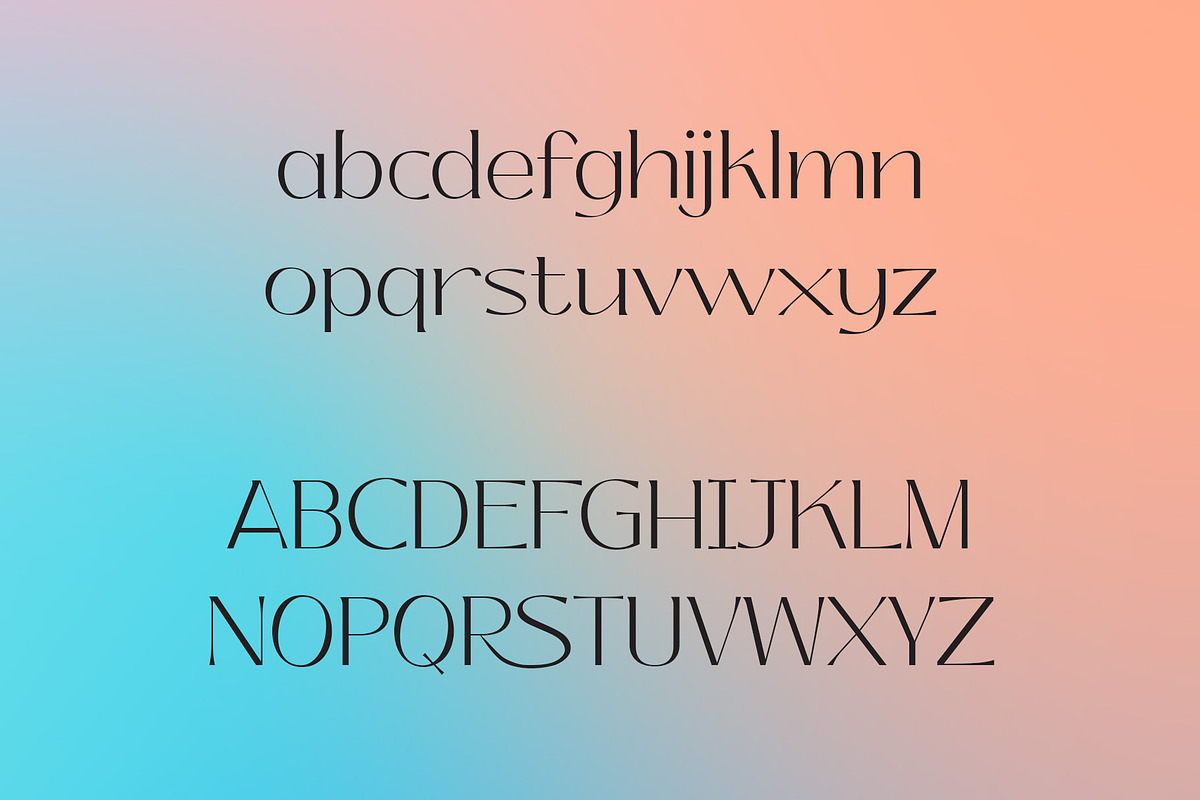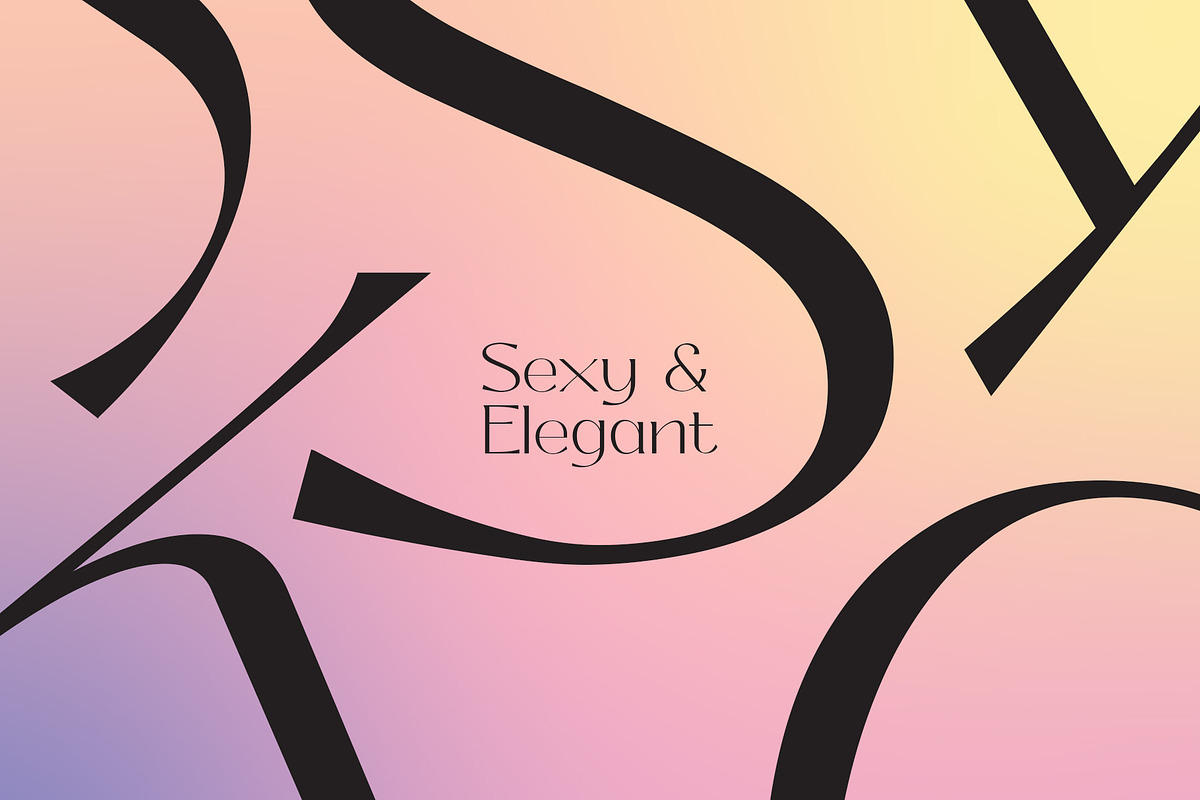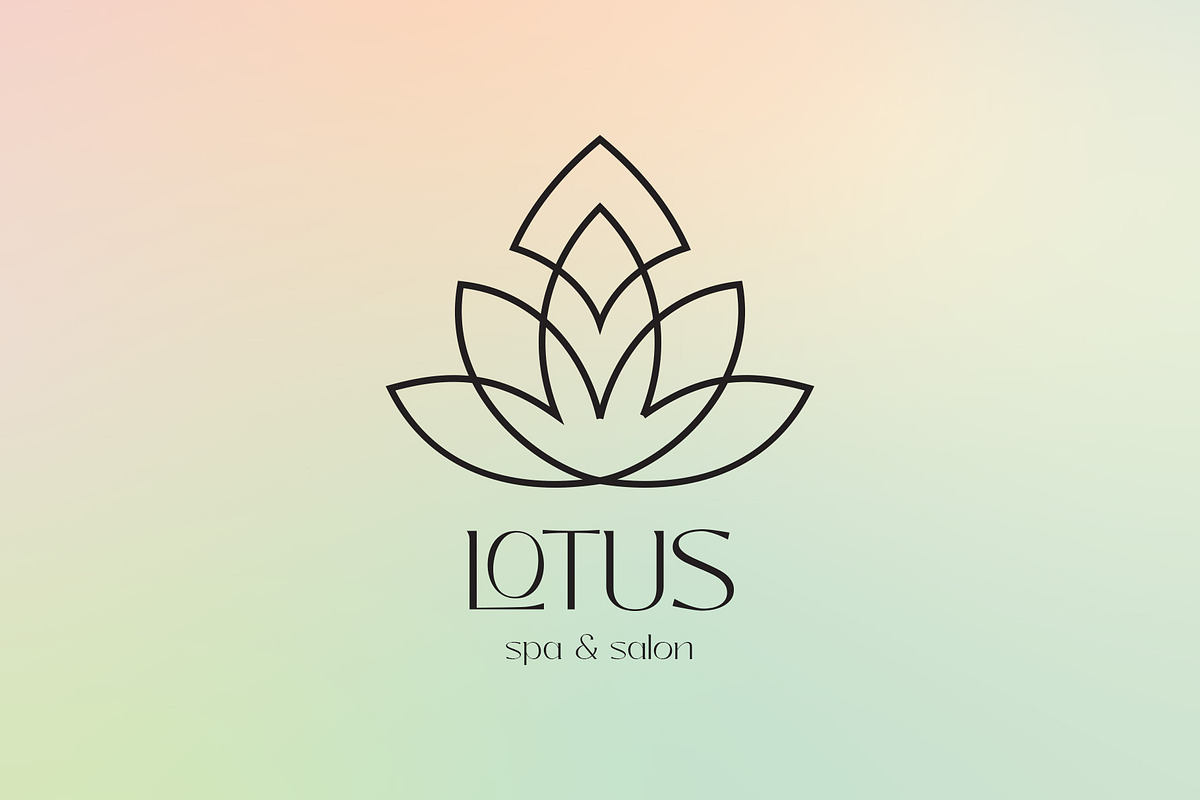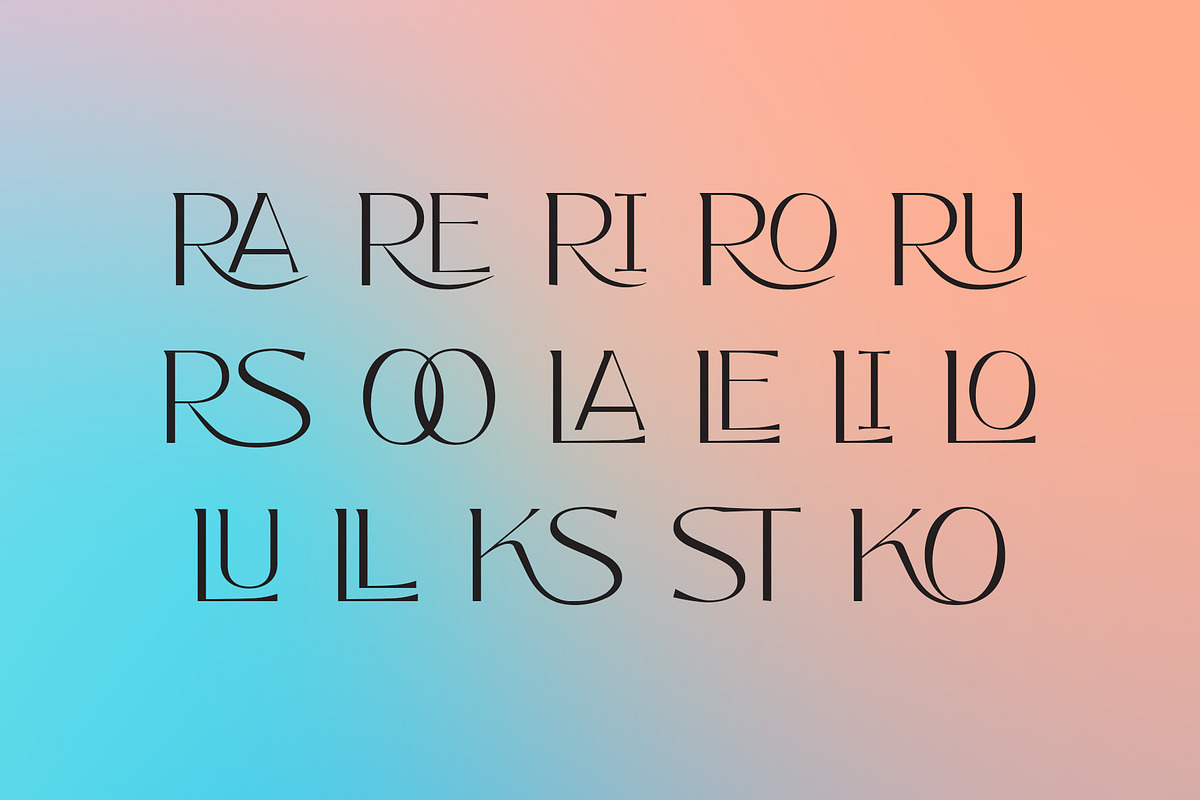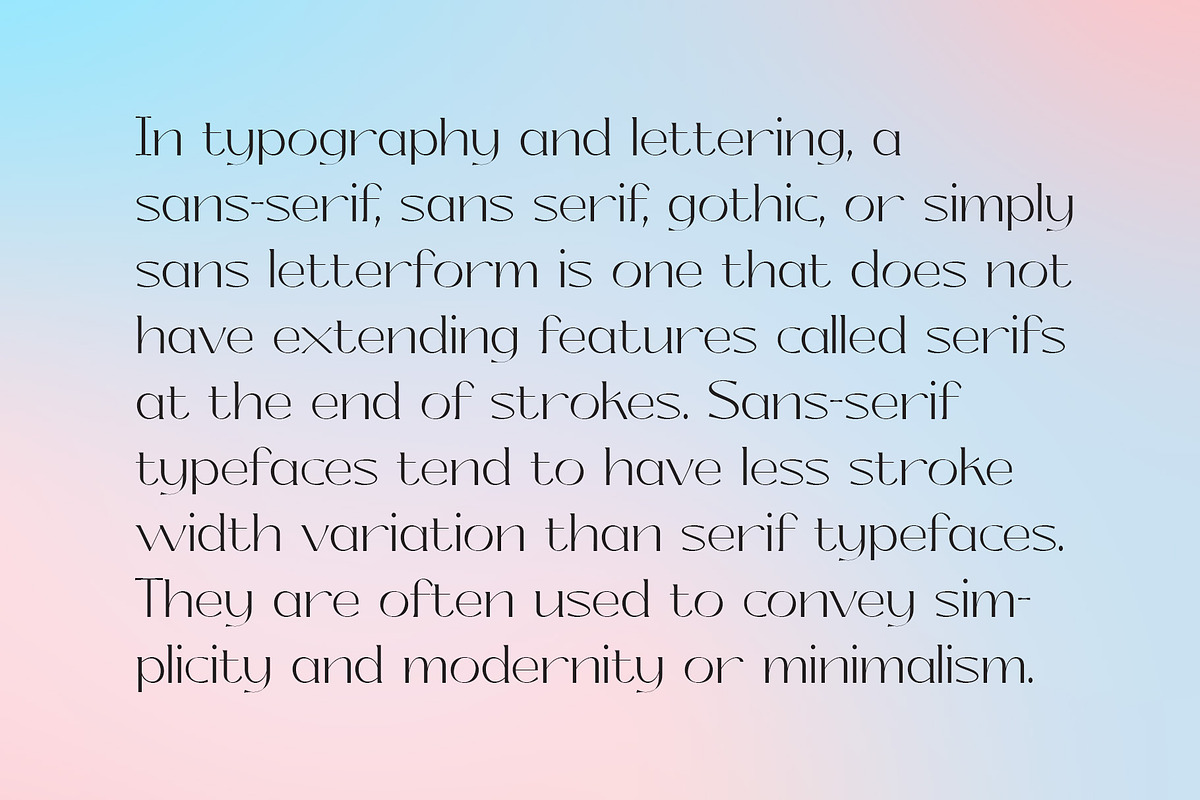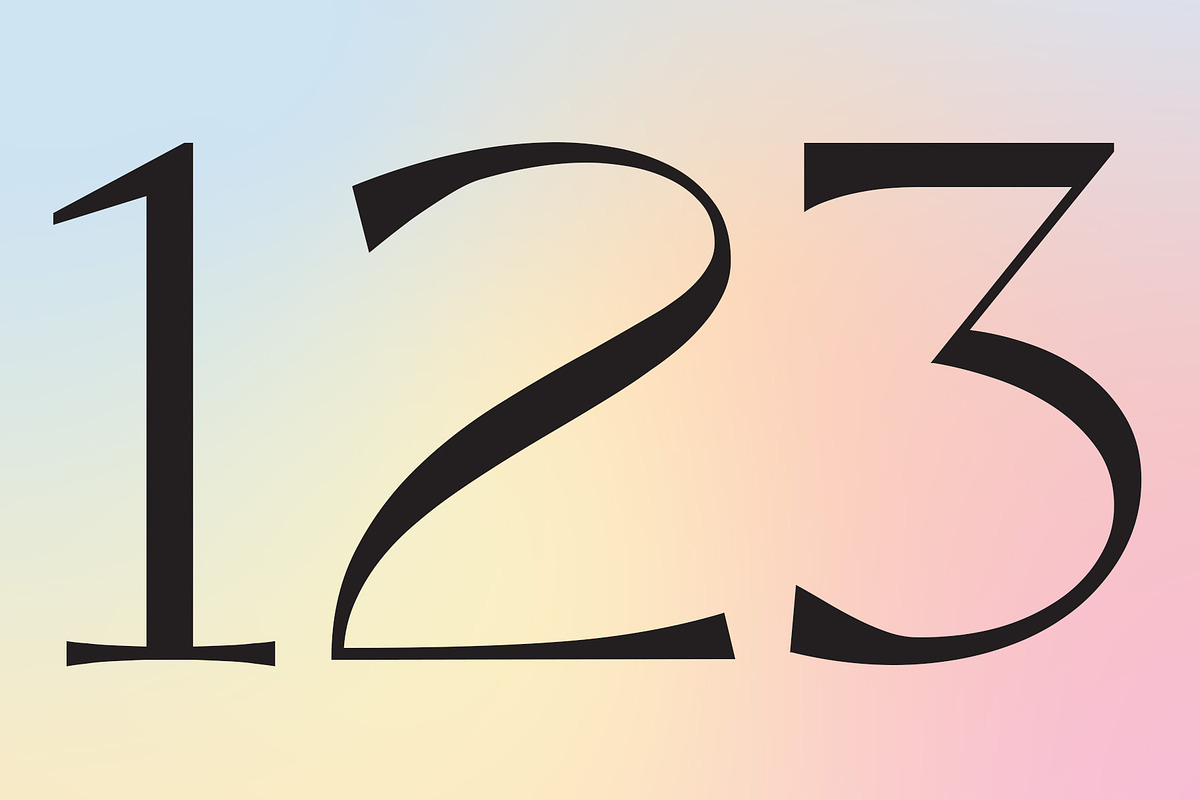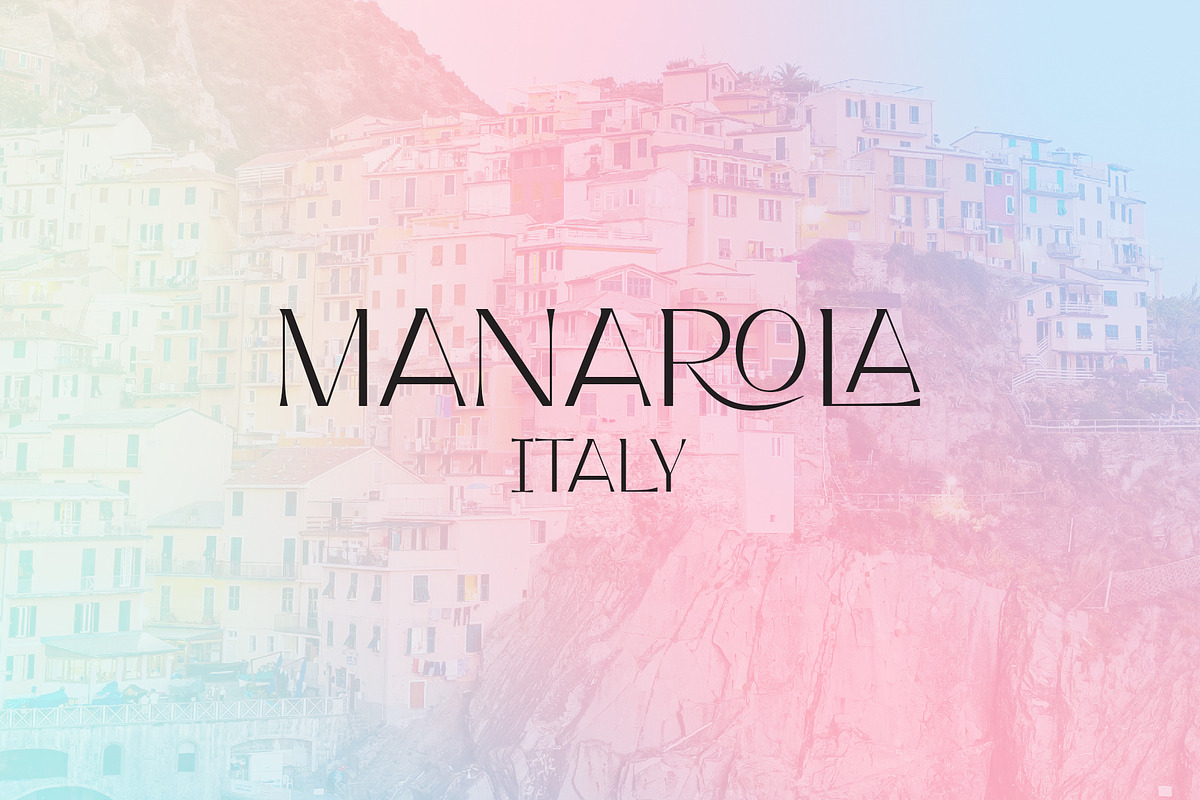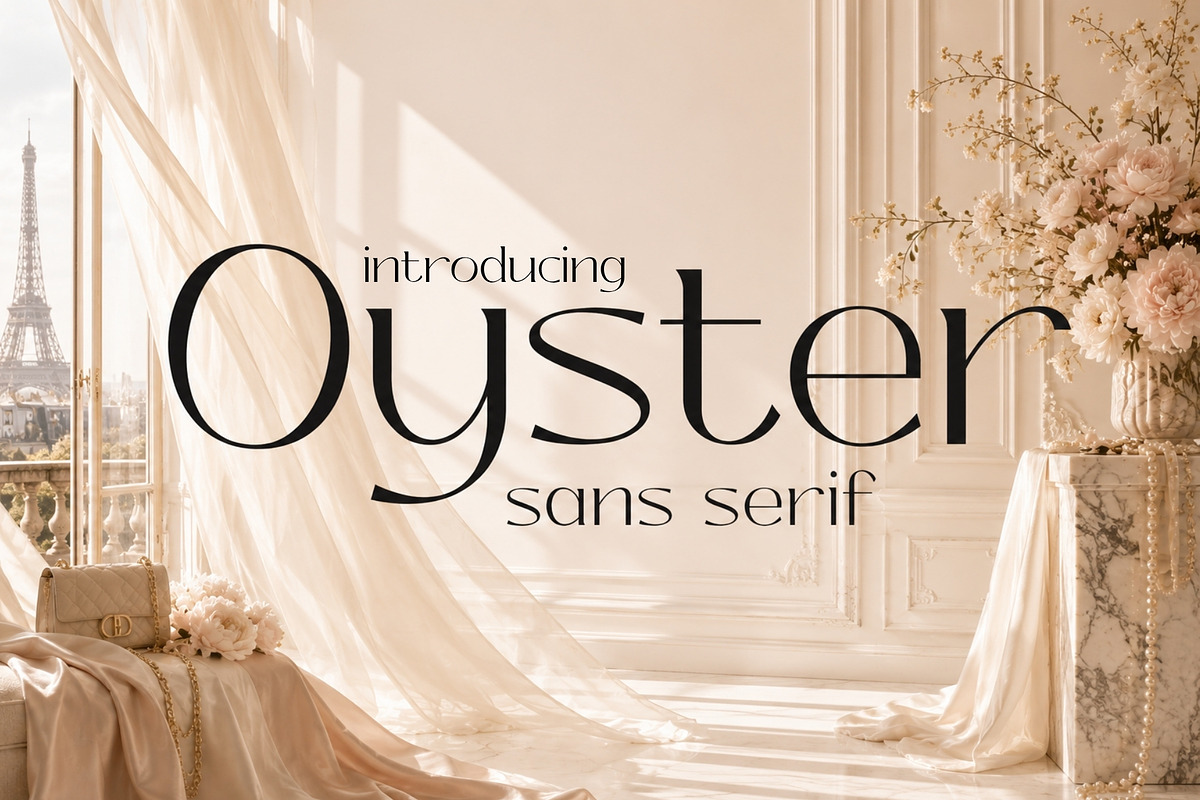
Oyster - Elegant Sans Serif
Oyster is a sexy and elegant sans serif typeface. This font will grab attention and make your works stand out. Its use is ideal for fashion projects, packaging, branding, magazines, headlines, social media, invitations, and much more. Oyster also includes beautiful ligatures, which will add an extra spark to your design.
If you're looking for a timeless sans serif typeface with great mileage, then Oyster is for you!